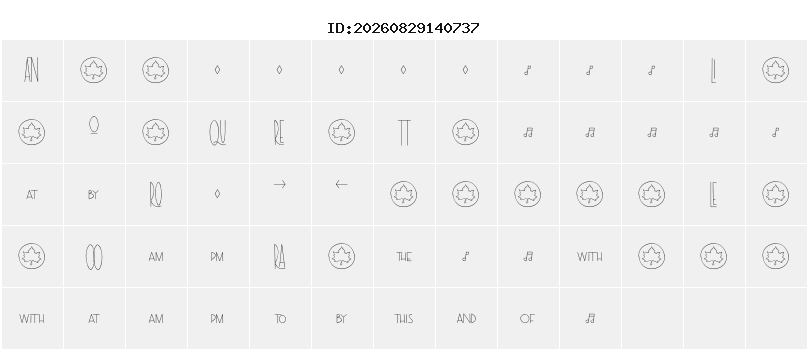
• Font Name: The Rambl Symbols and Ligatures
• Designer: Alex Tomlinson
• Manufacturer: Skyhaven Fonts
About The Rambl Symbols and Ligatures.otf
The Rambl Symbols and Ligatures.otf is a modern, elegant sans-serif font designed for ultimate readability and visual harmony. Perfect for branding, headlines, web design, and print materials.